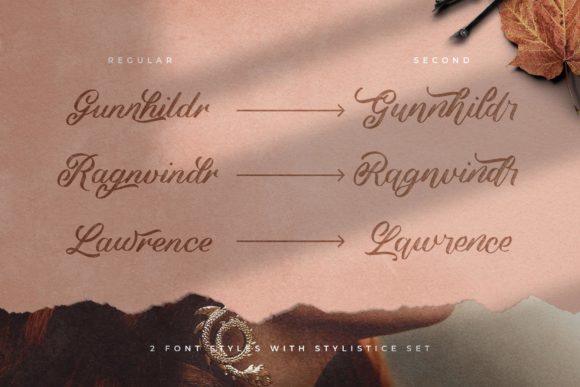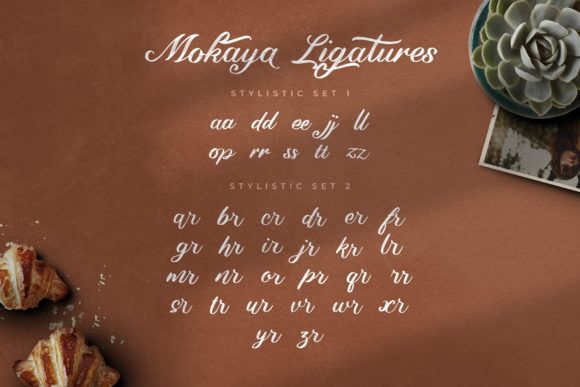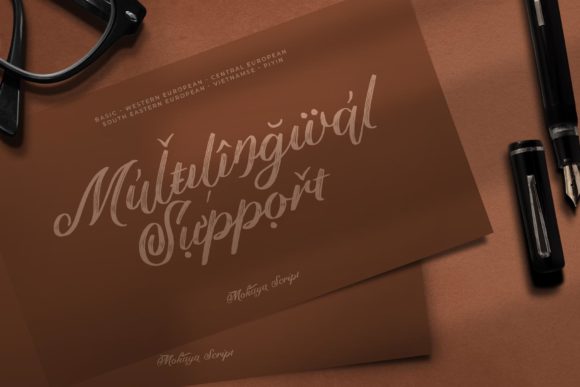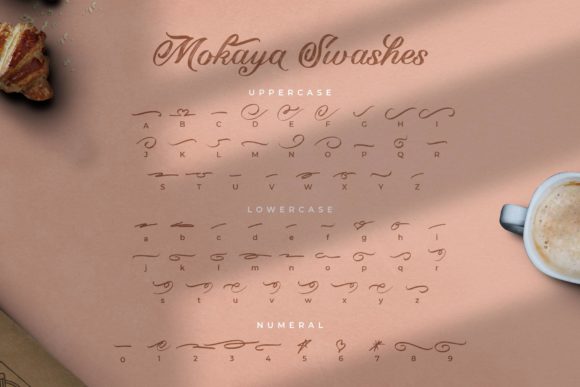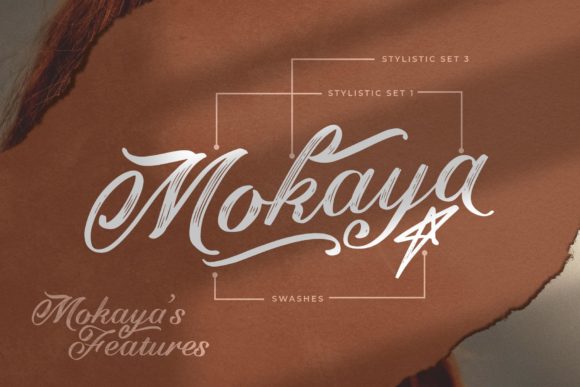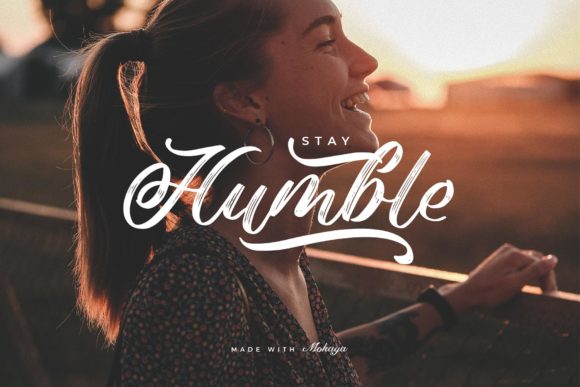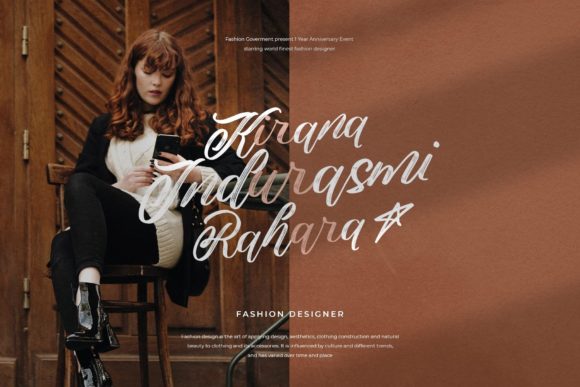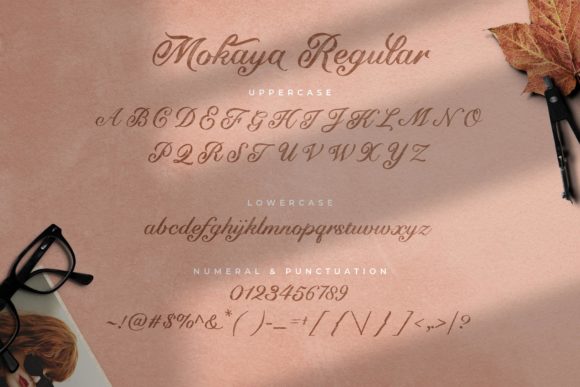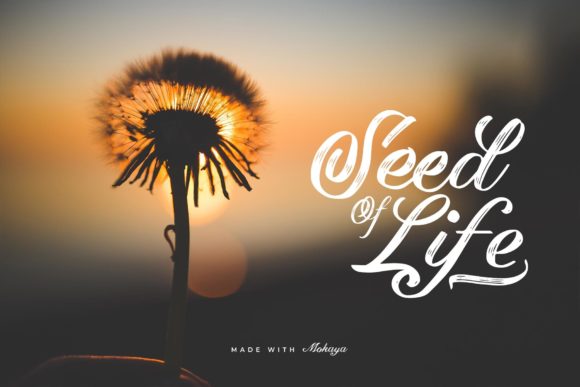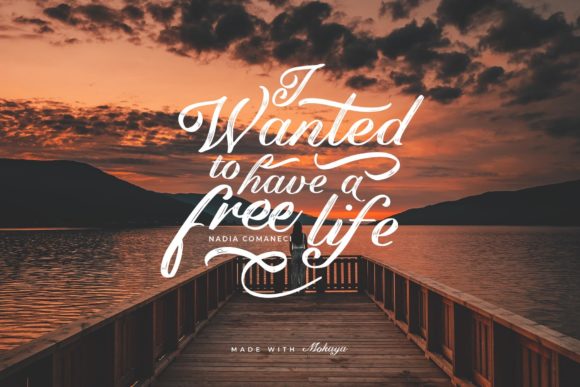
Mokaya Script Font
About Mokaya Script Font
Mokaya Script is an exquisite handwritten font, masterfully designed to become a true favorite. It maintains its classy calligraphic influences while feeling contemporary and fresh. Mokaya Script is PUA encoded which means you can access all of the amazing glyphs and ligatures with ease!